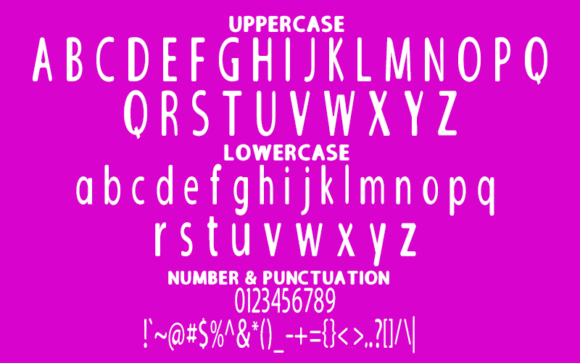
Discover the Unique Charm of Galileo Fixed Zoom Font
In the realm of typography, few fonts manage to strike a balance between tradition and modernity as effectively as Galileo Fixed Zoom. This distinct, whimsical sans serif font brings a fresh perspective to the world of design, blending classic influences with a contemporary aesthetic. Whether you’re a seasoned designer or a crafty enthusiast, Galileo Fixed Zoom is sure to captivate you with its exquisite, yet subtle charm and maximum versatility.
The Genesis of Galileo Fixed Zoom
Galileo Fixed Zoom’s design story begins with a deep dive into the roots of traditional typography. The creators sought to infuse the font with a sense of history while ensuring it remains firmly planted in the present. This careful blend of old and new results in a font that feels both timeless and cutting-edge. The fixed zoom aspect of the font refers to its unique design feature that maintains its proportions and aesthetic appeal across various sizes, making it incredibly versatile for a wide range of applications.
Key Characteristics of Galileo Fixed Zoom
- Whimsical Sans Serif: Galileo Fixed Zoom boasts a sans serif design with a whimsical twist, giving it a friendly and approachable feel.
- Traditional Influences: The font draws on traditional typography, offering a nod to the past while maintaining a modern edge.
- Contemporary Aesthetic: Its clean lines and balanced proportions make it perfect for contemporary design projects that require a touch of elegance.
- Versatility: One of the standout features of Galileo Fixed Zoom is its versatility. It can be used in a variety of contexts, from digital interfaces to print materials, without losing its impact.
Applications of Galileo Fixed Zoom
The adaptability of Galileo Fixed Zoom makes it an excellent choice for numerous design projects. Here are some of the areas where this font truly shines:
- Branding: Use Galileo Fixed Zoom to create a memorable brand identity that stands out with its unique charm.
- Web Design: Its legibility on digital screens makes it an excellent choice for websites and mobile applications.
- Print Materials: From brochures to business cards, Galileo Fixed Zoom adds a touch of sophistication to any print project.
- Packaging: The font’s distinctive look makes it perfect for product packaging that needs to stand out on store shelves.
Tips for Using Galileo Fixed Zoom Effectively
To make the most of Galileo Fixed Zoom, consider the following tips:
- Pair it with Complementary Fonts: While Galileo Fixed Zoom is versatile on its own, pairing it with complementary fonts can enhance its appeal and create visual interest.
- Experiment with Sizes: Take advantage of the font’s fixed zoom feature by experimenting with different sizes to find the perfect balance for your design.
- Play with Colors: Don’t be afraid to experiment with various colors to see how they interact with the font’s unique design.
Galileo Fixed Zoom is more than just a font; it’s a design statement. Its unique blend of traditional influences and contemporary aesthetics, combined with its whimsical charm and versatility, makes it an invaluable tool for designers and crafters. Whether you’re looking to create a stunning brand identity, a captivating website, or eye-catching print materials, Galileo Fixed Zoom is sure to deliver. Embrace the distinctive appeal of Galileo Fixed Zoom and elevate your designs to new heights.